Twitter’s new typeface neglects the countries where it’s growing the fastest
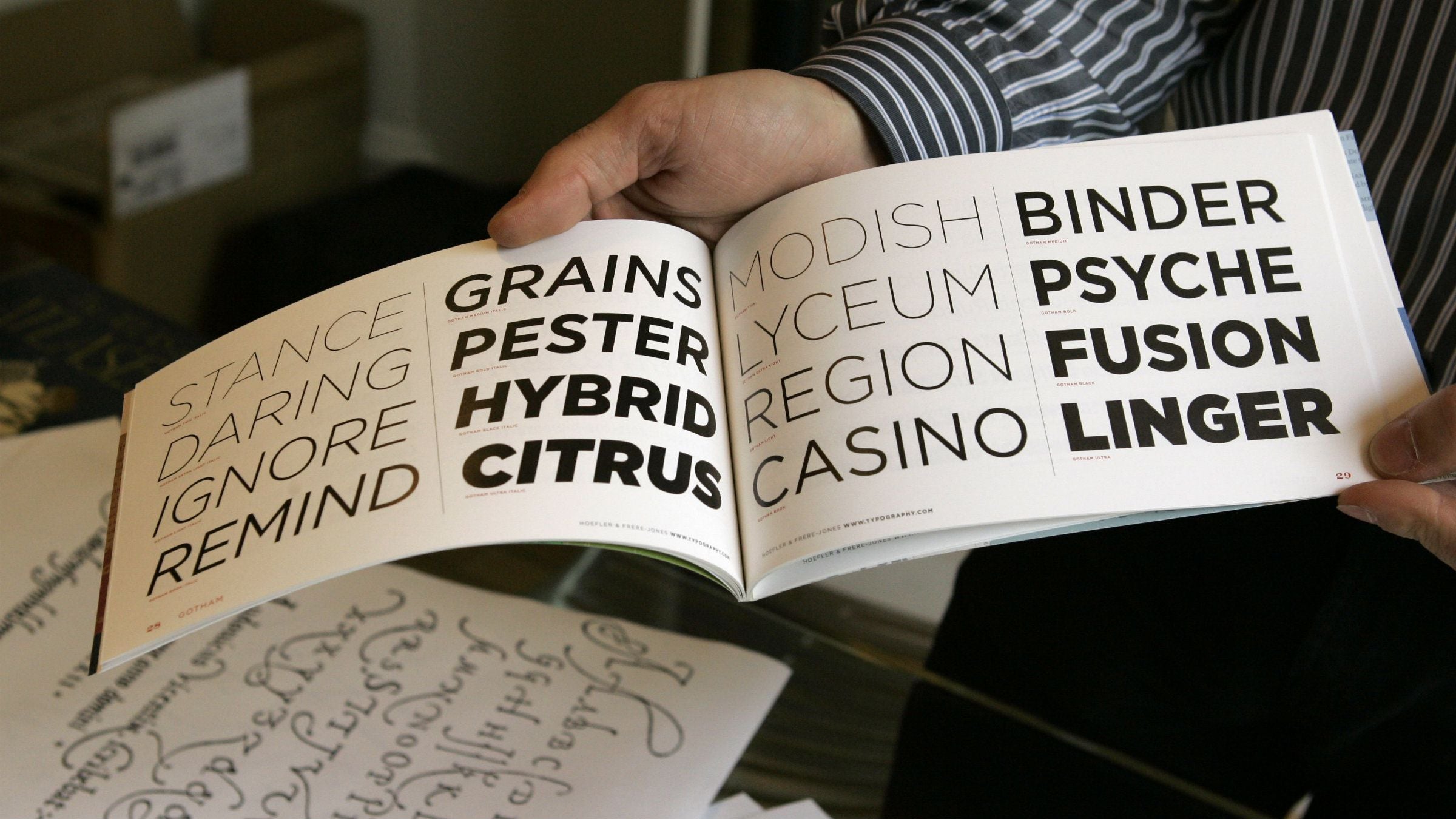
When companies tweak their designs, it often seems like little more than changing the drapes—or, literally, moving a few pixels around. But sometimes small changes reorient the user experience or quietly herald a shift in corporate strategy. So what to make of Twitter’s May 30 announcement that it was switching its main typeface from Neue Helvetica to Gotham?
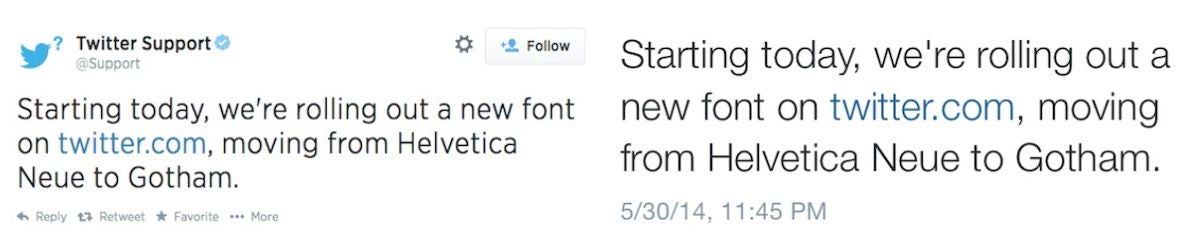
At first glance, Twitter’s typeface choice seems strictly practical in nature. Gotham’s roomier, more relaxed design makes it more comfortable than Helvetica to read on phones and tablets. (Contrary to Apple’s risible announcement yesterday that its upcoming OS X Yosemite will use Helvetica to improve legibility, the typeface isn’t easy to read on small screens.) Gotham is also familiar, having been used for everything from Saturday Night Live’s opening credits to Barack Obama’s 2008 presidential campaign. And for a “non-system” font—meaning, a font that’s not prepackaged in a given operating system—Gotham offers a decent ability to be rendered consistently among various platforms.
But not all platforms. In fact, maybe more interesting than what Twitter’s new type selection accomplishes is what it leaves out. Namely, most of the scripts used in the countries where it’s growing the fastest.
A big drawback to Gotham is that it lacks character sets for Arabic, Cyrillic, Indic, and other major non-Latin writing systems, says Stephen Coles, a typographer and the author of The Anatomy of Type. That’s despite the fact that these are increasingly popular on Twitter. Users who set their language to Arabic, Farsi, or Urdu will see tweets in Tahoma, a Microsoft typeface family that supports some but not all non-Latin scripts. (Indic, for instance, is left out.)
The result is a patchwork approach that reflects what Coles says is a scarcity of modern, well-designed, screen-optimized typefaces that cover the world’s major scripts. Take Arabic, for instance. Since Gotham hasn’t developed an extension for the script, people tweeting in Arabic will see Tahoma instead. But English speakers (or Twitter users who set their language to English but also tweet in Arabic) will see a mix of Gotham and Arial Unicode:
Here’s another view of how English-speaking or dual-language Twitter users will see a tweet in Arabic (again, with the English set in Gotham and the Arabic in Arial Unicode):
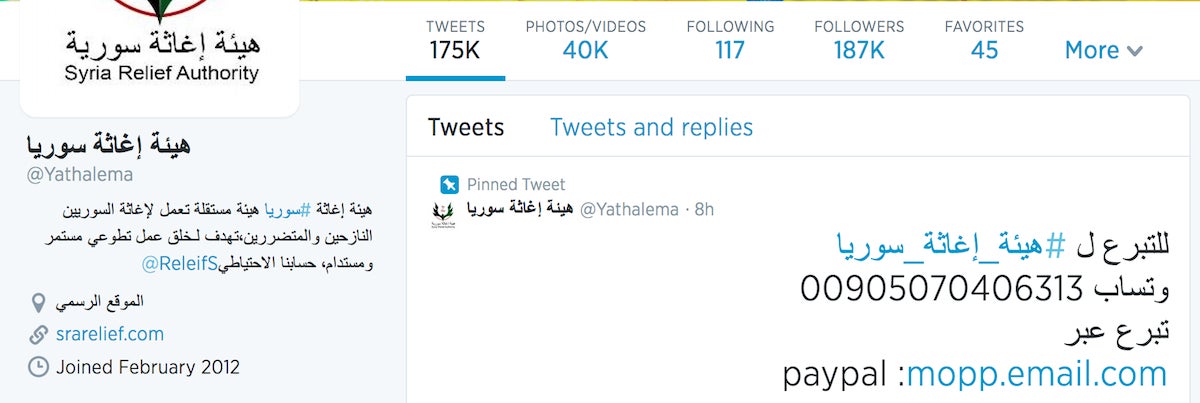
To typography experts like Coles, the visual clash between Gotham and Arial is jarring.
“The fallback for Arabic is a traditional calligraphic style, while Gotham is a very clean sans serif,” Coles told Quartz in an e-mail. “There are differing schools of thought on how to marry Arabic with Latin type designs (how much should you stiffen the Arabic to match the Latin?), but these two faces at least are certainly at odds with each other.”
The clash is equally apparent with Cyrillic. Following the current fad for extra-thin typefaces, Twitter chose a light version of Gotham. The default for Cyrillic, Lucida Grande, is much more muscular in comparison:
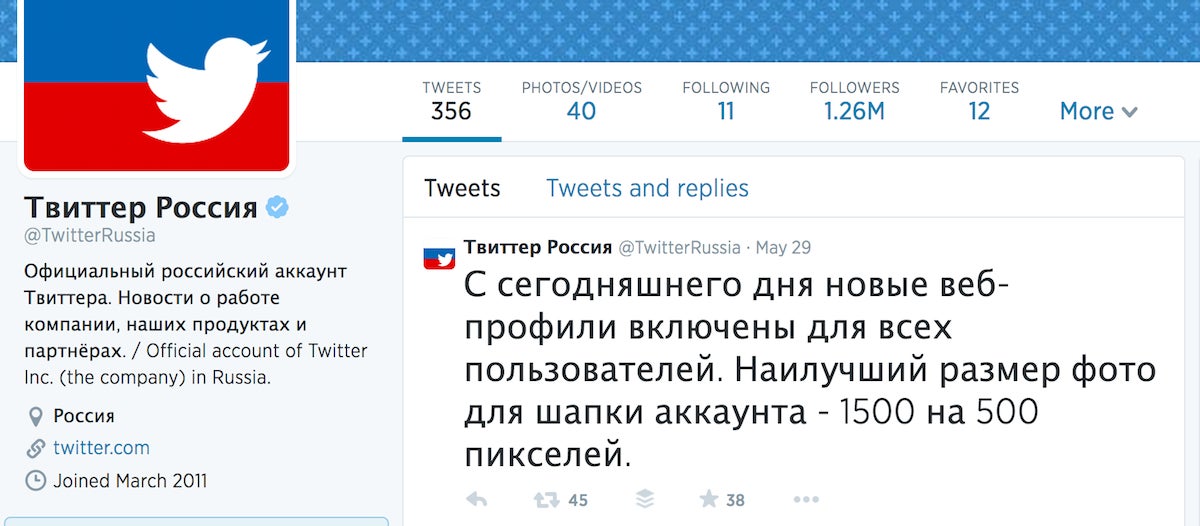
It’s not that there aren’t other options. Coles says that Twitter could have chosen another contemporary, screen-friendly typeface that also provides non-Latin character support. Frutiger, for example, offers harmonious versions of Arabic, Cyrillic, and Indic. So does Fedra. (Better type support for Chinese, Japanese, and Korean is still a long way away.) Both Frutiger and Fedra also have the benefit of being less overexposed than Gotham, which has become nearly as ubiquitous as Helvetica in its heyday. Whether Twitter might one day choose a single type family that covers more of the world is anyone’s guess. A spokesperson for the company told Quartz, “Twitter can’t comment on future plans to standardize typefaces more comprehensively.”
Of course, grating typography isn’t the biggest deal in the world. But if it’s worth making the interface better for some Twitter users, why ignore the rest? Its selection of Gotham seems to suggest that Twitter isn’t directing attention and resources toward the users who make up the fastest-growing segment of its business. The message that sends could be trouble in the long term, no matter how pretty the face you put on it.